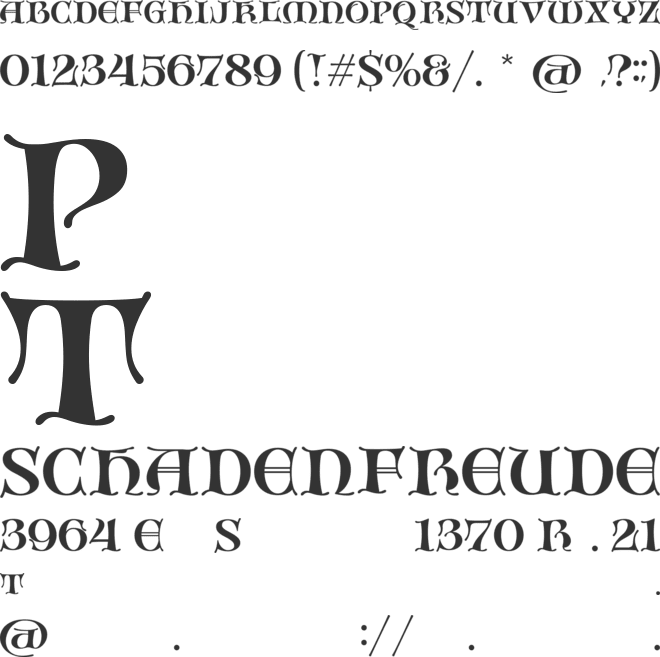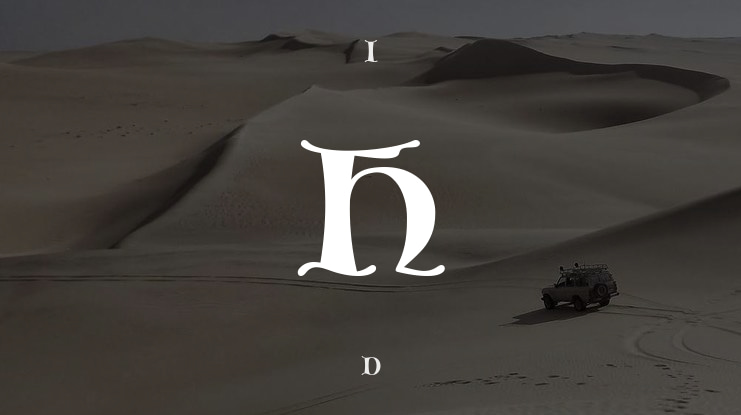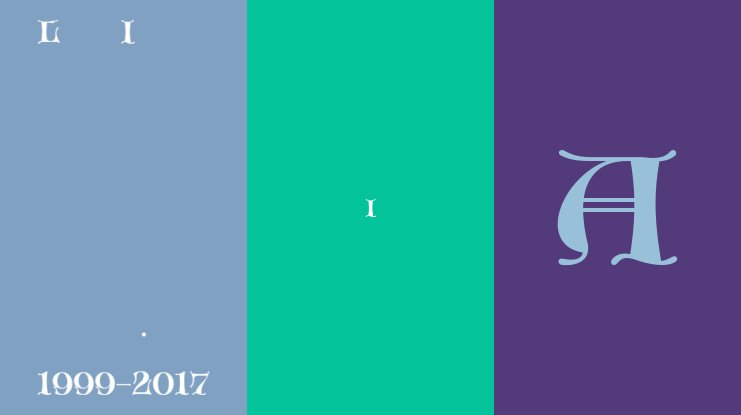
Hortus Font
Hortus Typeface: A Garden of Classical Elegance
Step into a world of timeless beauty with Hortus, a masterfully crafted decorative typeface that breathes life into the grandeur of classical European and Greco-Roman art. Inspired by ancient stone carvings, lush botanical illustrations, and ornate manuscripts, Hortus masterfully blends historical charm with intricate natural beauty.